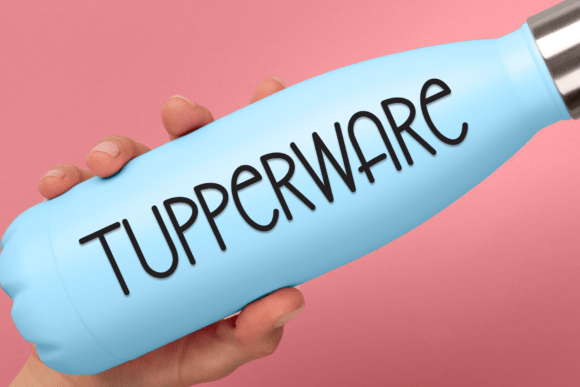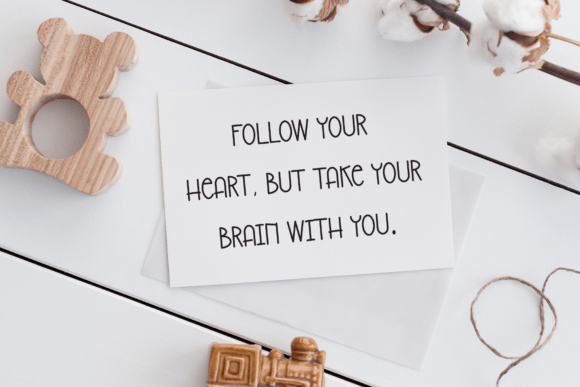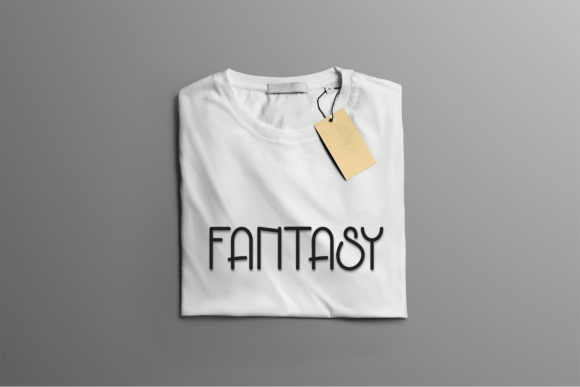
Introduction to Monday Winter Font
Introducing a charming handwritten display font, exuding sweetness and friendliness.
Characterized by its cute and whimsical style, this font breathes life into your design projects, be it crafting enchanting wedding invitations or vibrant greeting cards Add a splash of fun to your designs, with a font that effortlessly incorporates a playful touch.